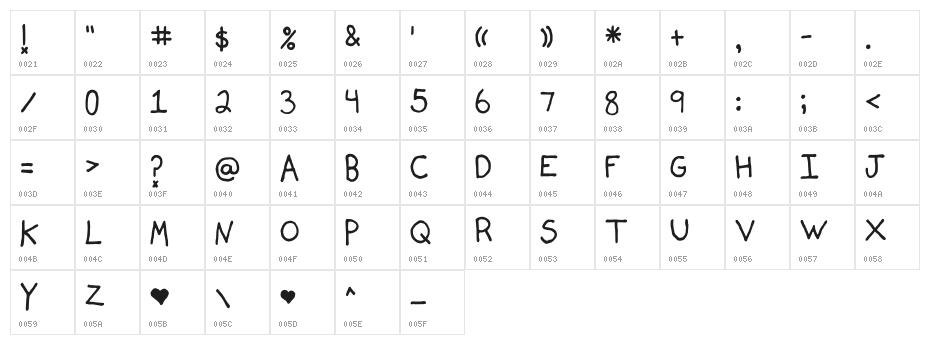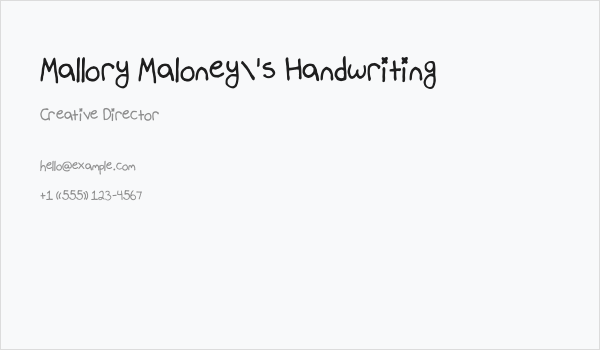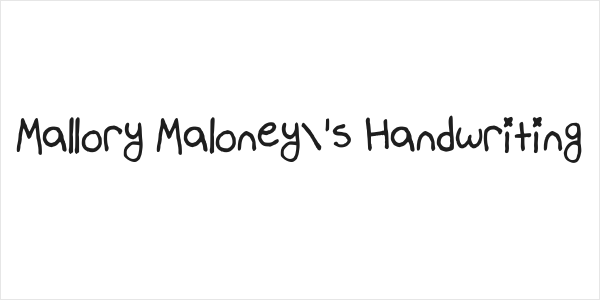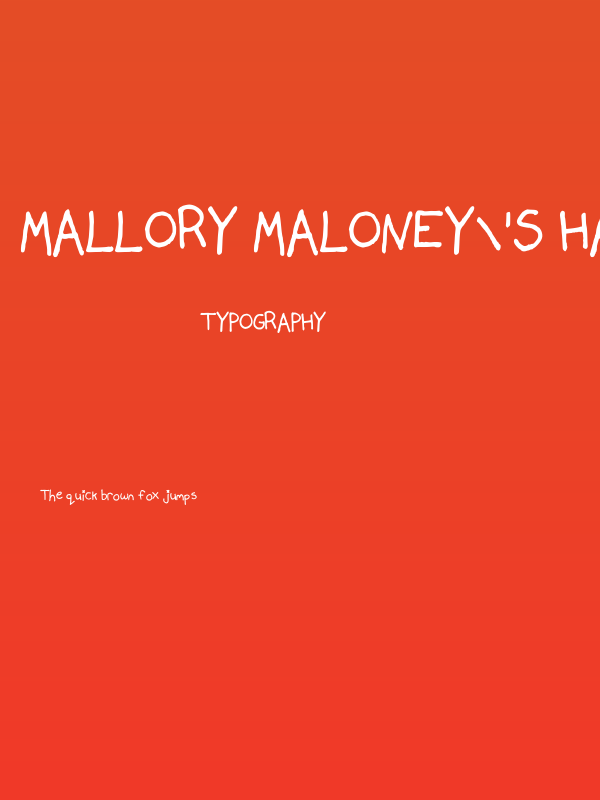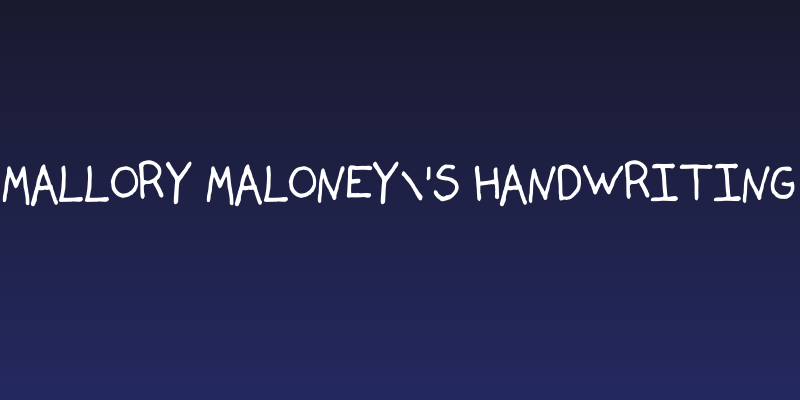
Mallory Maloney's Handwriting Font
Mallory Maloney's Handwriting Description
This font exudes a playful and informal vibe, reminiscent of casual handwriting. The characters are slightly irregular, adding a personal touch that mimics the natural flow of hand-drawn letters. The strokes are consistent in thickness, providing a uniform appearance despite the whimsical style. The uppercase and lowercase letters maintain a cohesive look, with rounded edges and a slight tilt that enhances the handwritten feel. Numbers and special characters follow the same aesthetic, ensuring a harmonious overall design.
Overall StyleCasual, Playful
Use CaseHeadlines, Informal text, Creative projects
Proposed ProjectsIdeal for projects needing a personal touch, such as greeting cards, invitations, children's books, or casual branding materials.